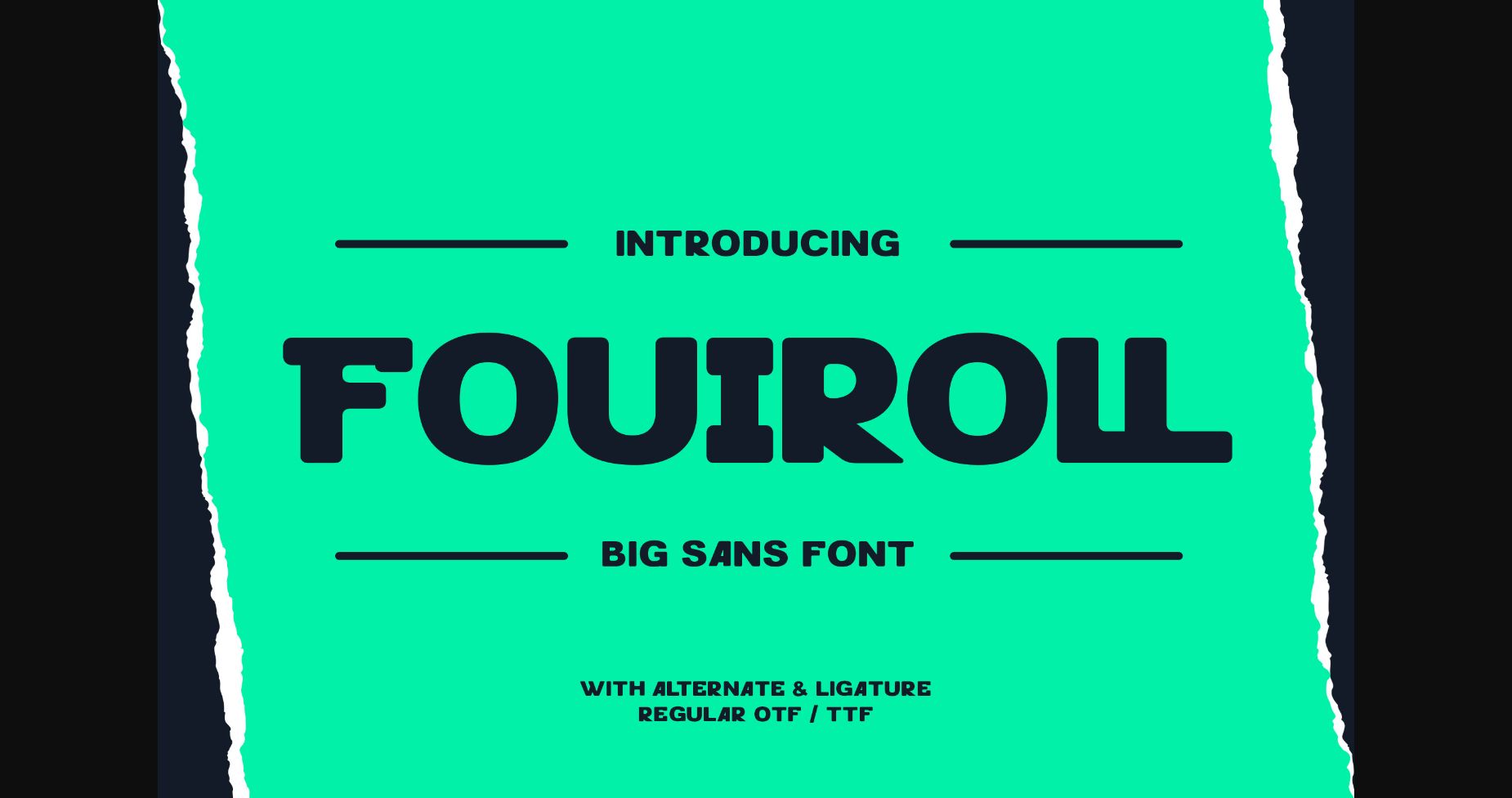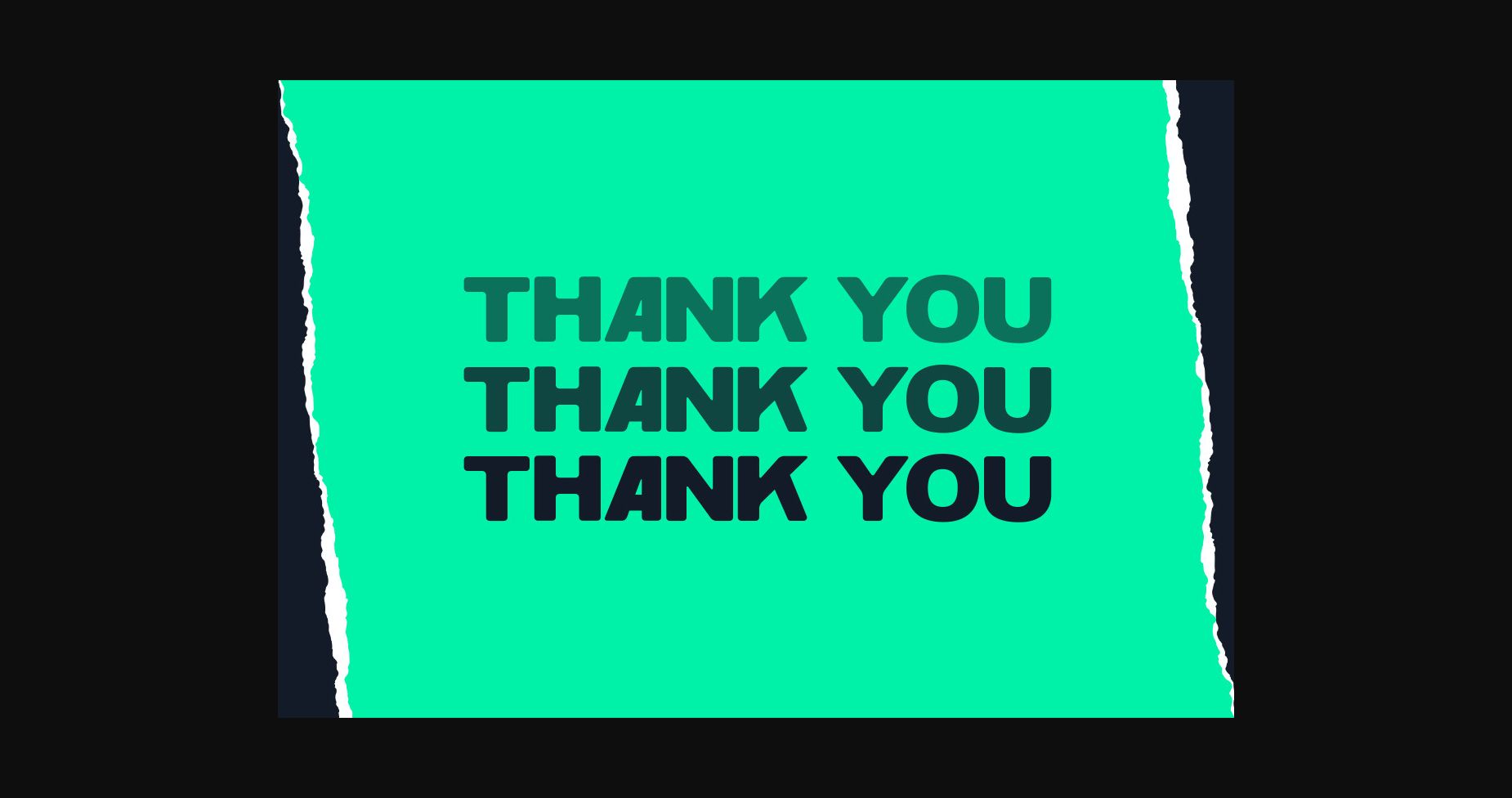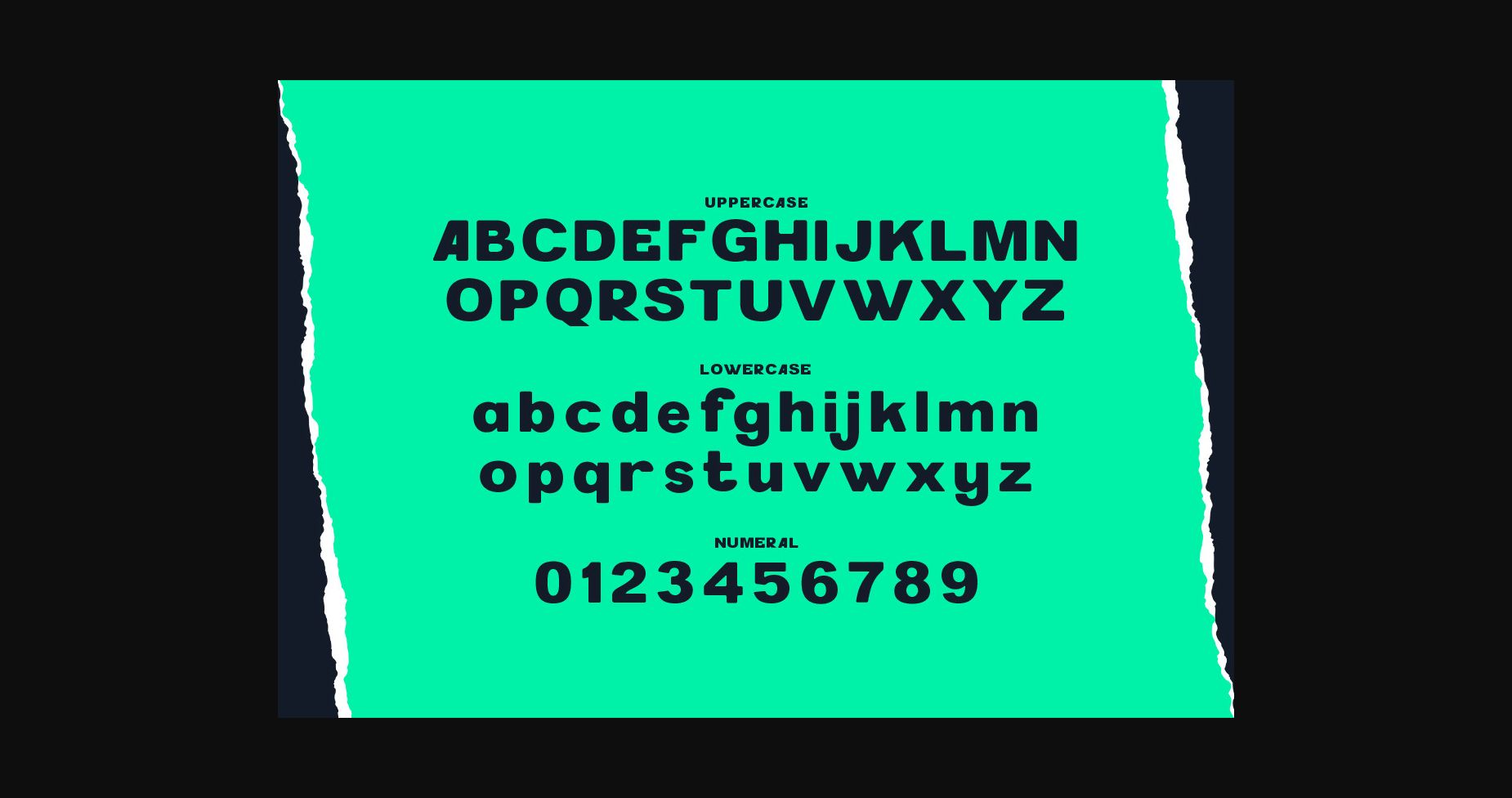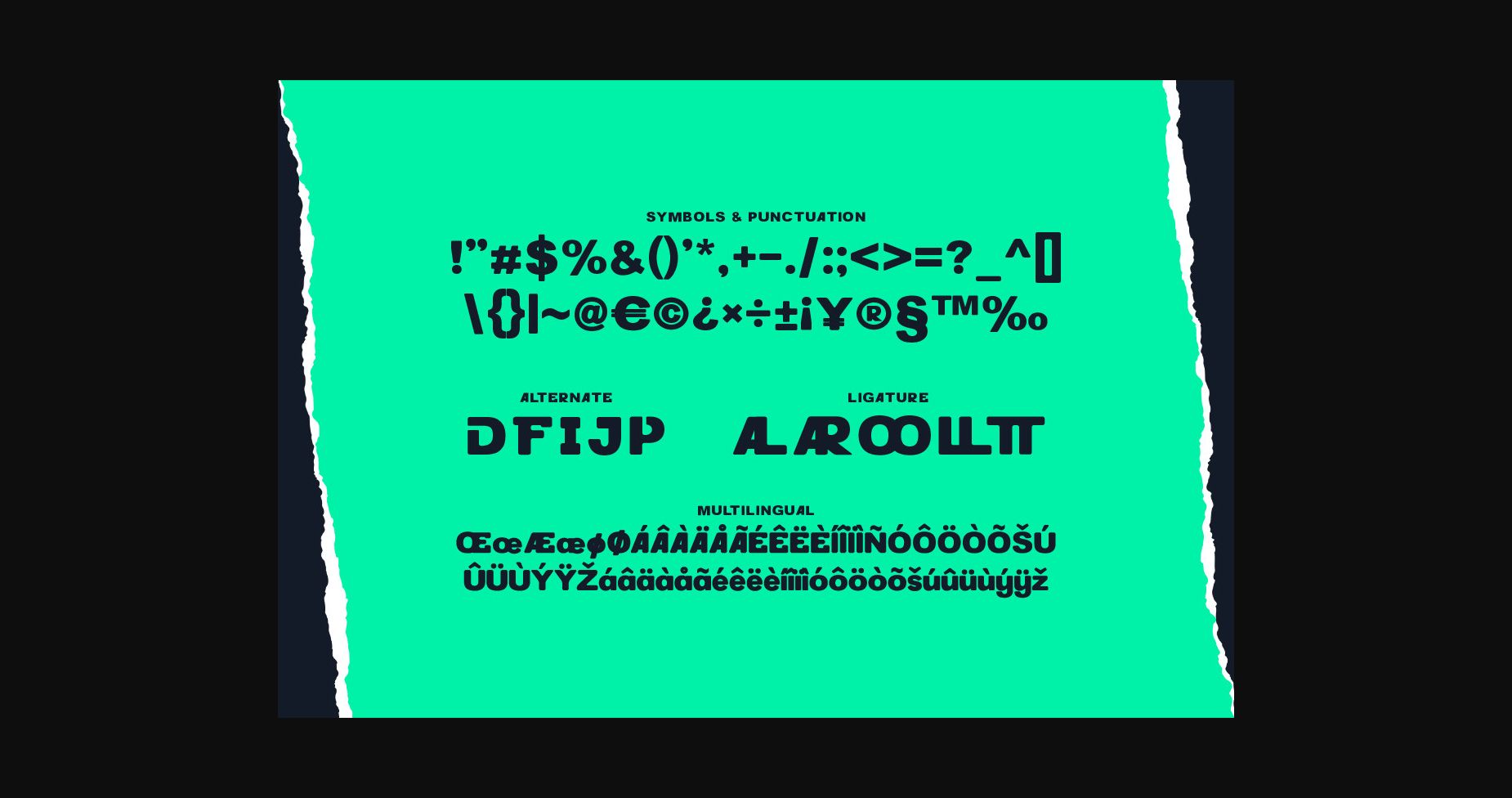
About Fouiroll Font
Looking for a font that’s big, bold, and perfect for making a statement? Look no further than Fouiroll – a powerful and commanding sans serif font that’s sure to get your message across.
With its strong and sturdy letterforms, Fouiroll is a font that’s perfect for headlines, titles, and other text that needs to stand out. Each letter is designed to be big and bold, making it easy to read from a distance.
Whether you’re creating posters, banners, or other large format designs, Fouiroll is the perfect font for the job. It’s also great for use in branding, packaging design, and other creative projects where a strong and commanding font is needed.
With its strong and sturdy letterforms, Fouiroll is a font that’s perfect for headlines, titles, and other text that needs to stand out. Each letter is designed to be big and bold, making it easy to read from a distance.
Whether you’re creating posters, banners, or other large format designs, Fouiroll is the perfect font for the job. It’s also great for use in branding, packaging design, and other creative projects where a strong and commanding font is needed.